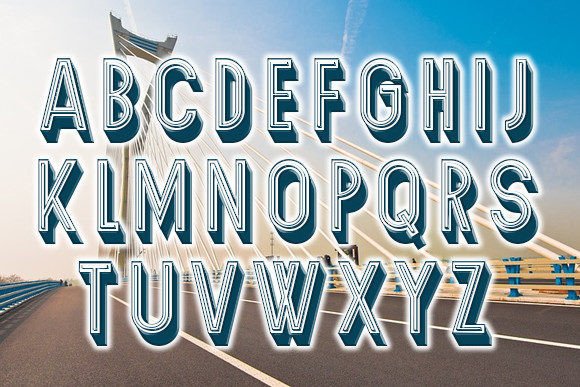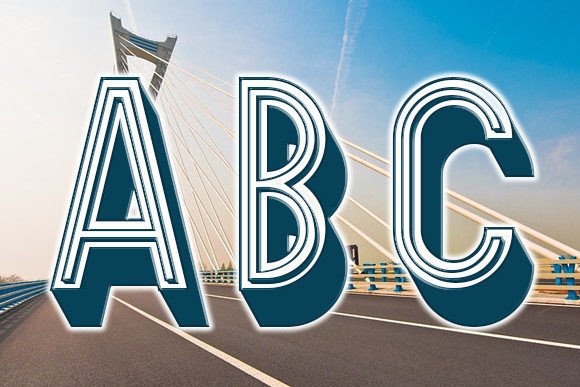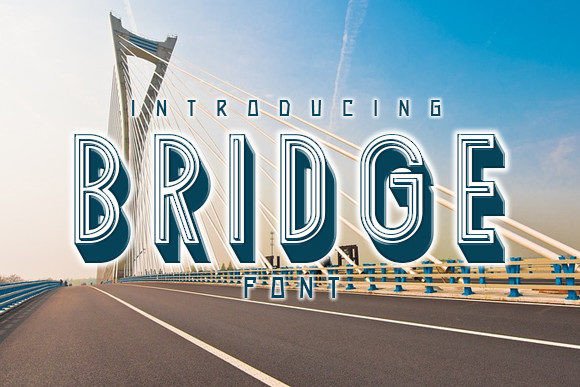
The Bridge Font: Elevate Your Designs with Elegance
Have you ever been in the middle of a design project, and suddenly, you’re stuck on finding the perfect font? I recall a recent experience where I was working on a poster design for a luxury brand, and my client requested a font that exuded elegance and sophistication. After hours of searching, I stumbled upon the Bridge Font, and it instantly became the perfect fit. In this article, we’ll dive into the world of Bridge Font, exploring its features, uses, and some valuable tips on how to make the most of this stunning display font.
A Personal Review: What I Love About Bridge Font
Bridge Font has quickly become one of my go-to fonts for display purposes. Here’s what I love about it:
- ✨ Elegant and fancy design that’s perfect for luxury brands, high-end products, or sophisticated events
- ✅ Highly legible, even at larger font sizes
- 💫 Supports OpenType features, glyphs, and stylistic alternates, giving you plenty of creative freedom
- 📦 Versatile and can be used on various design materials, such as posters, flyers, banners, and more
While Bridge Font is an excellent choice for many design projects, there are a few minor limitations to consider:
- 🤔 May not be the best fit for body text or smaller font sizes, as it can become too ornate
- ⚠️ Limited availability of certain characters or glyphs, so be sure to check the font’s specifications before use
The Designer Inspiration Behind Bridge Font
Bridge Font was designed with the intention of creating a elegant and sophisticated display font that would elevate any design project. The designer aimed to craft a font that would be perfect for luxury brands, high-end products, and sophisticated events. With its clean lines, beautiful curves, and OpenType features, Bridge Font is sure to impress.
| Font Name | Bridge Font |
| Author | vladimirnikolic |
| What is Bridge Font best used for? | Bridge Font is ideal for display purposes, such as posters, flyers, banners, and luxury branding. |
| Is Bridge Font suitable for body text? | No, Bridge Font is not recommended for body text or smaller font sizes, as it can become too ornate. |
| Does Bridge Font support OpenType features? | Yes, Bridge Font supports OpenType features, glyphs, and stylistic alternates, giving you plenty of creative freedom. |